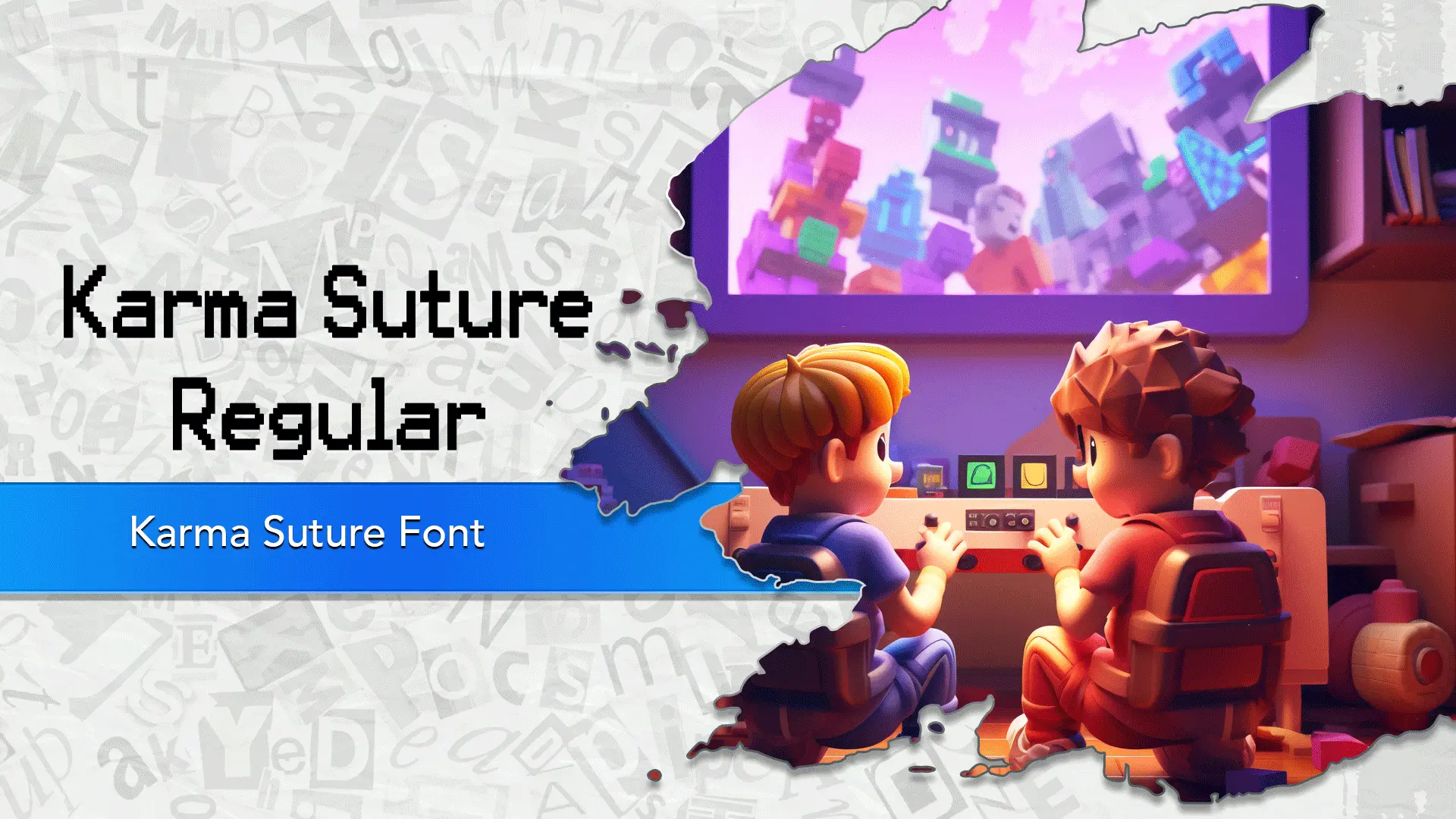
The Karma Suture font family may be ideal for you if you enjoy working on an artistic design project. The lively, expressive look of this typeface, which was created by Typodermic Fonts, makes it ideal for Retro Gaming and Arcade Themes(Video Game Titles/Logos, Game UI Elements), Digital Art and Pixel Art Projects(Emulating old computer interfaces), and other light-hearted visual projects.
Regular are the one primary font styles of the Karma Suture font family. You may build dynamic, visually appealing text layouts with the distinct flair that each style offers. With crisp, readable lines and a relaxed tone.